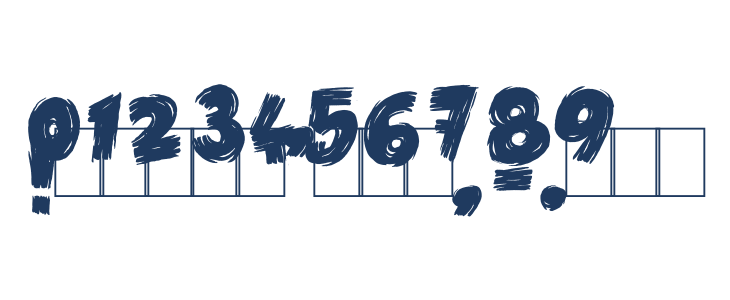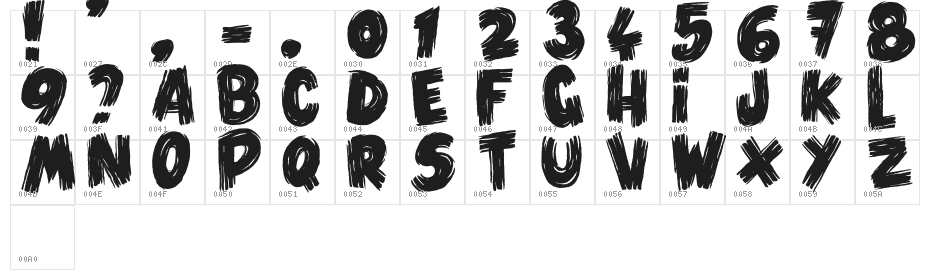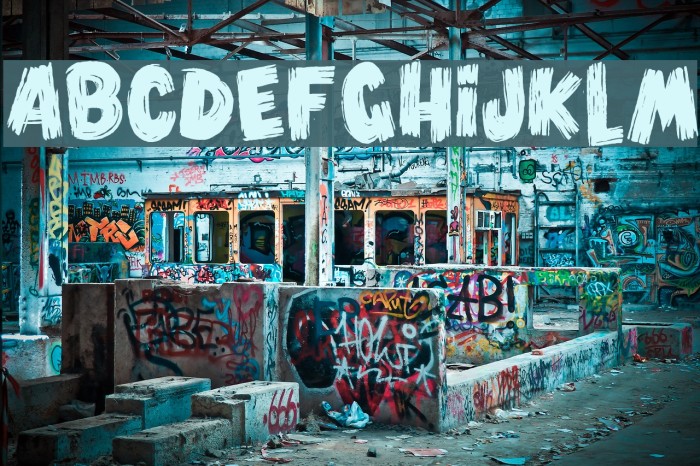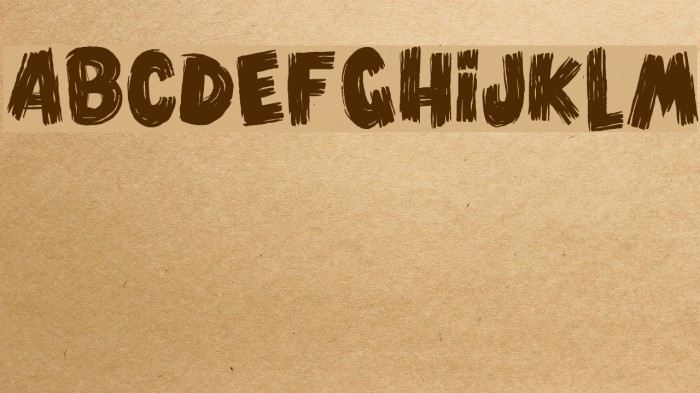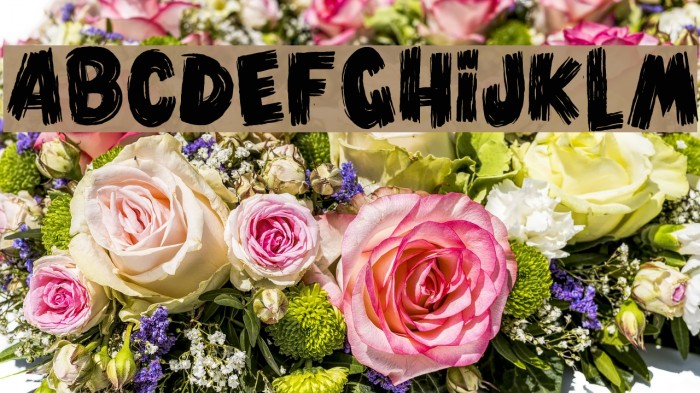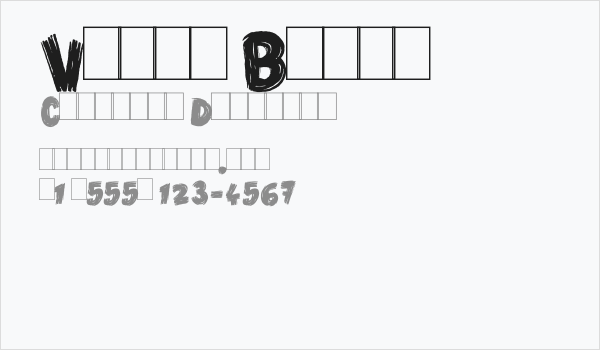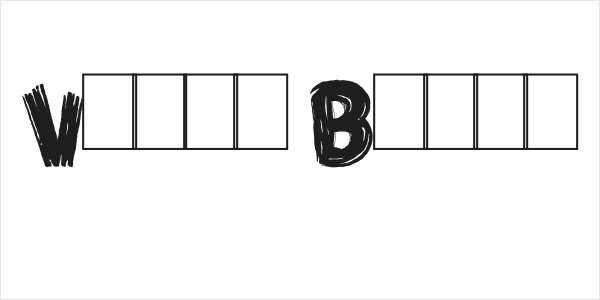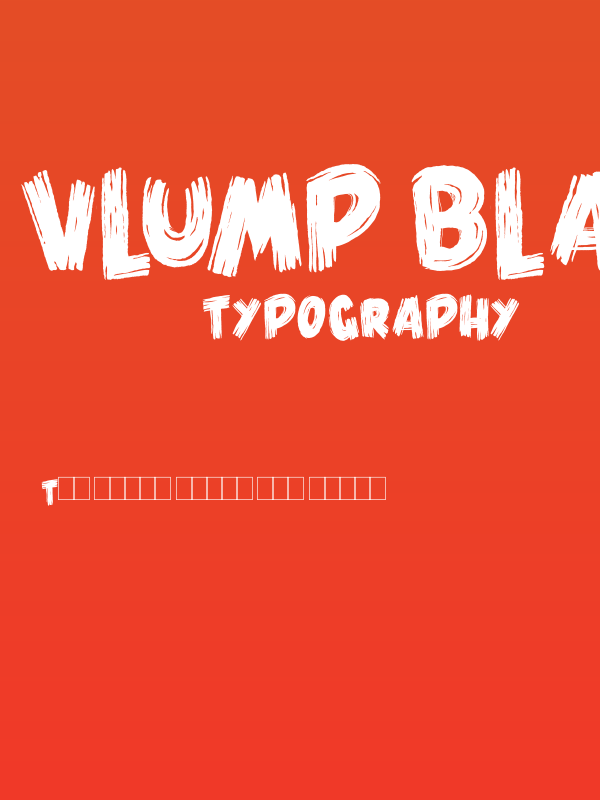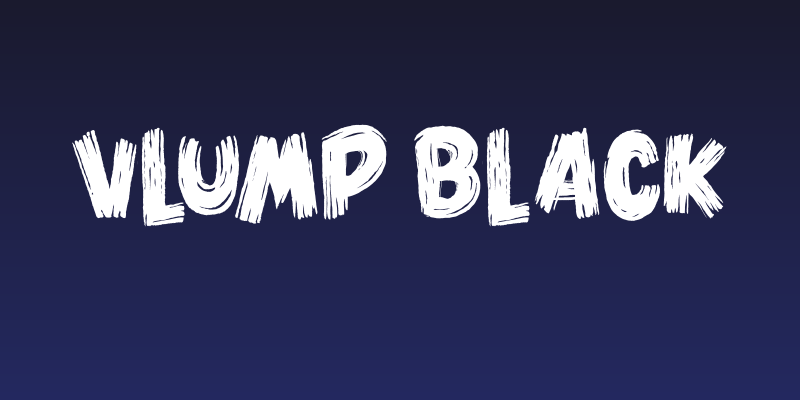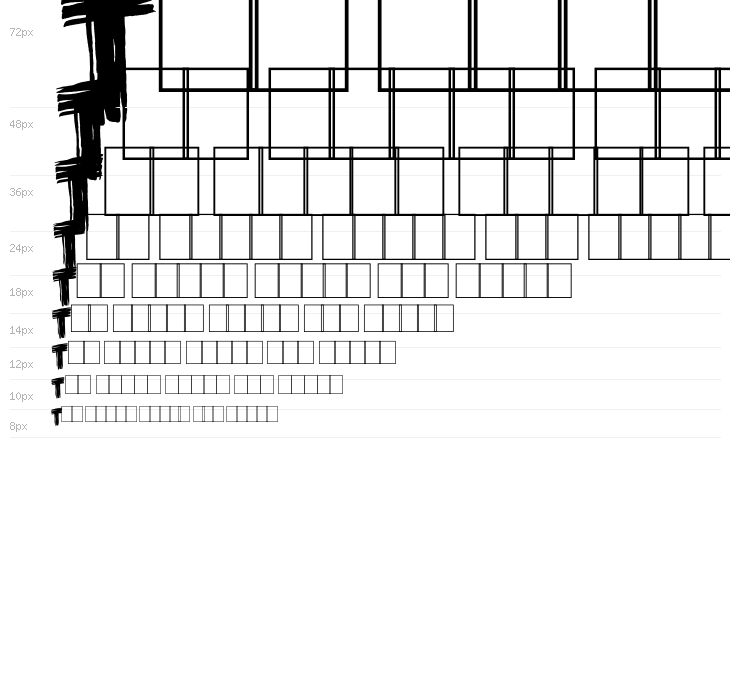
Vlump Black Font
Vlump Black Description
This font is characterized by its bold, brush-like strokes that give it a dynamic and energetic appearance. The letters are thick and have a hand-drawn quality, with irregular edges that add to its expressive style. The uppercase and lowercase letters maintain a consistent weight, and the numbers follow the same bold aesthetic. The special characters are also designed with the same brushstroke effect, making them cohesive with the rest of the font. This font's unique style makes it stand out, ideal for projects that require a strong visual impact.
| Proposed Projects | Ideal for posters, headlines, branding, and any design that requires a bold, artistic touch. |